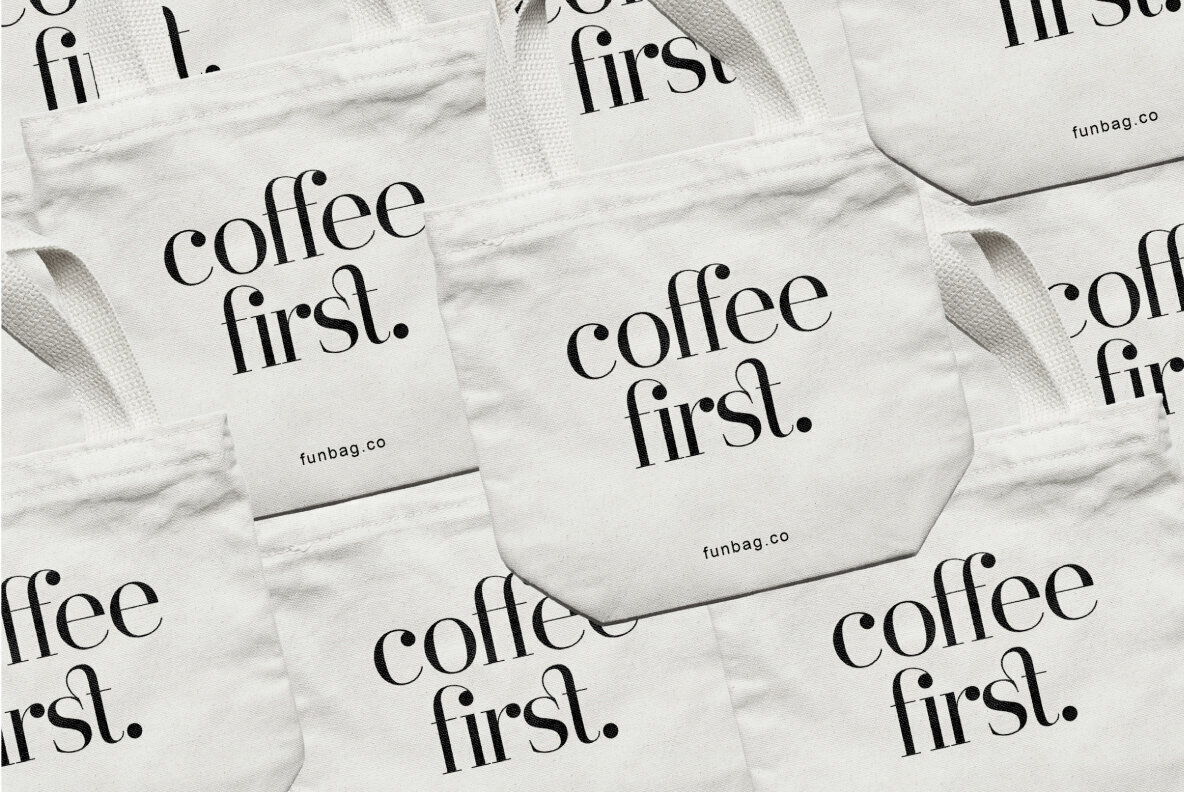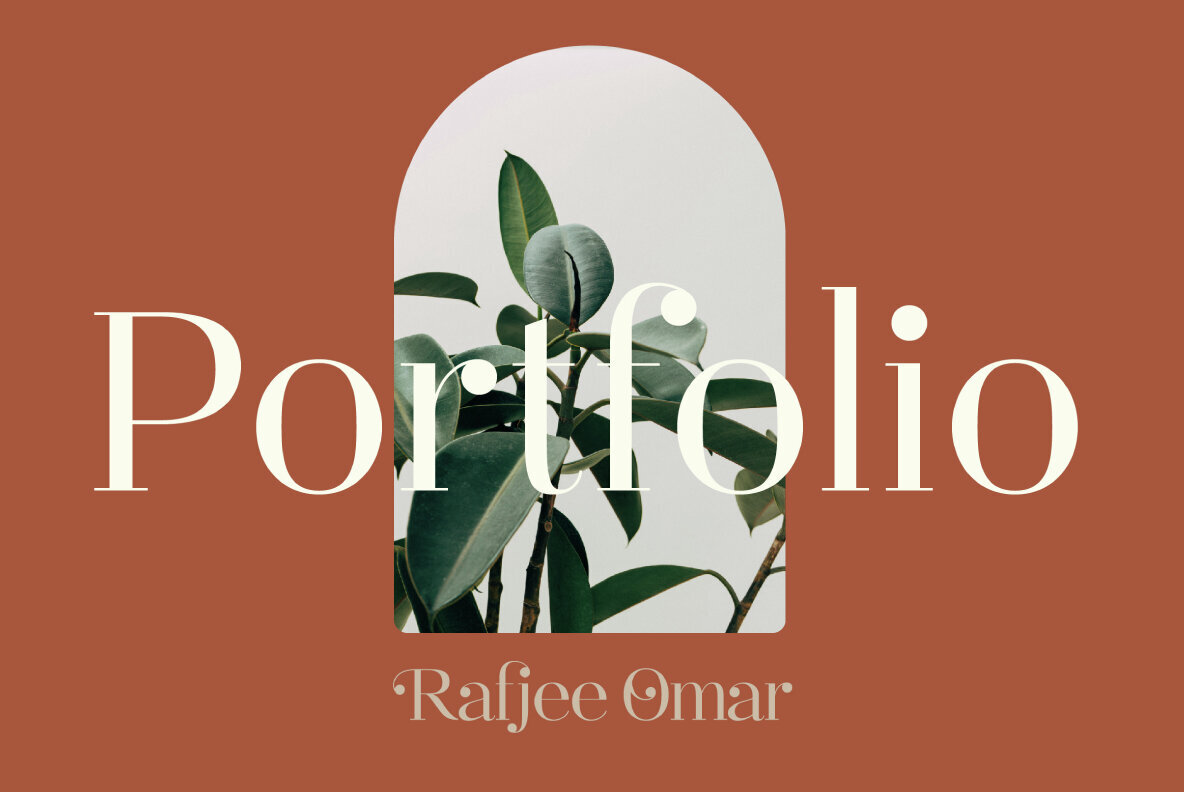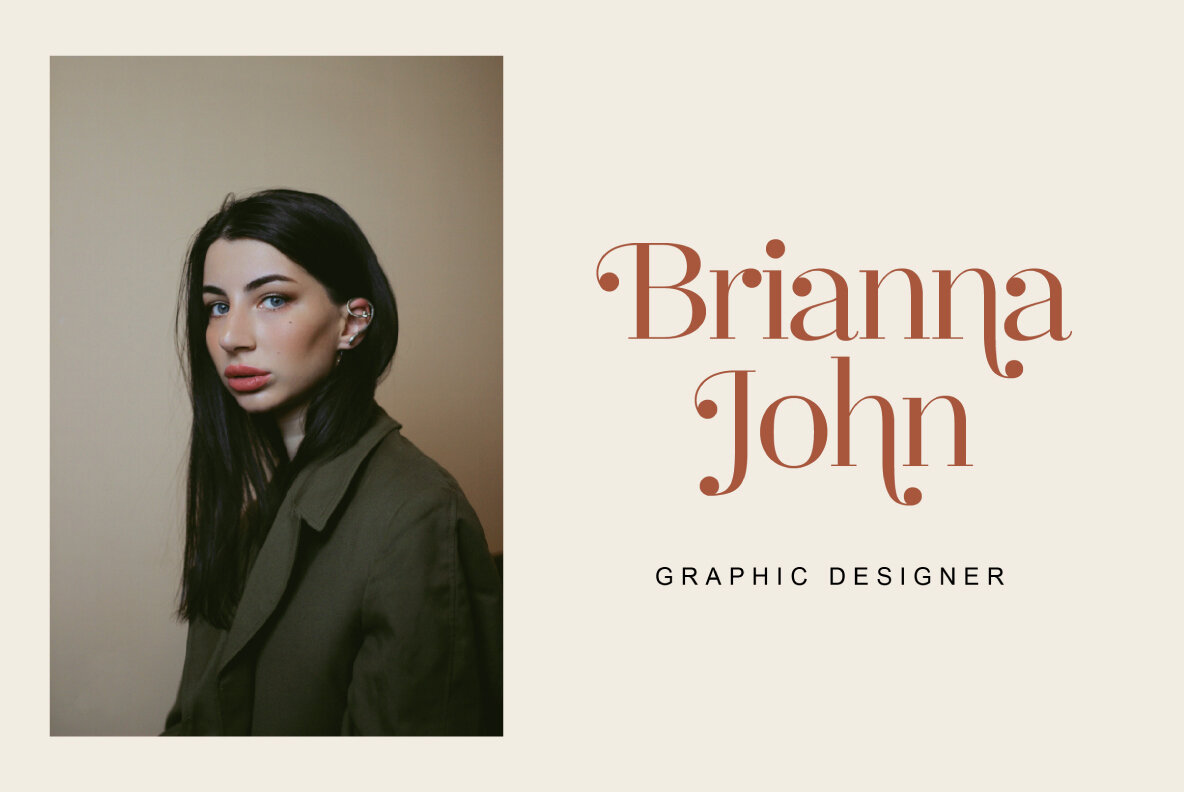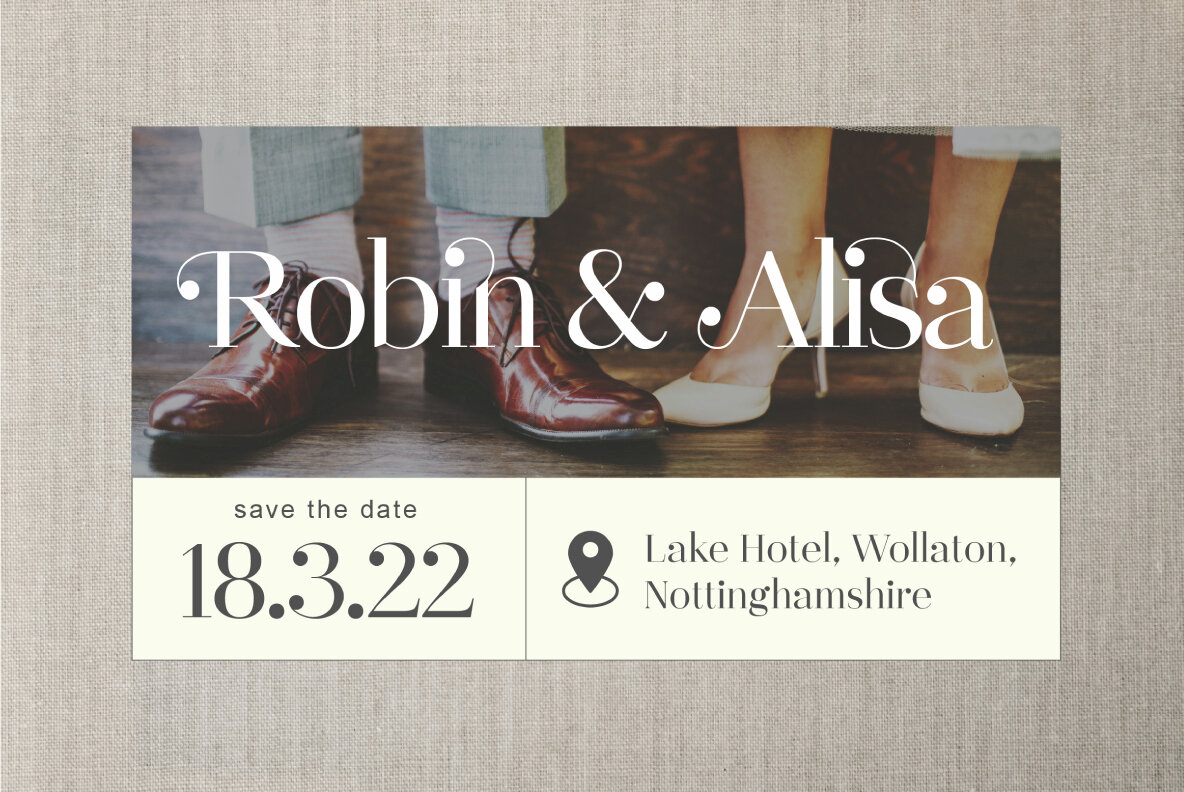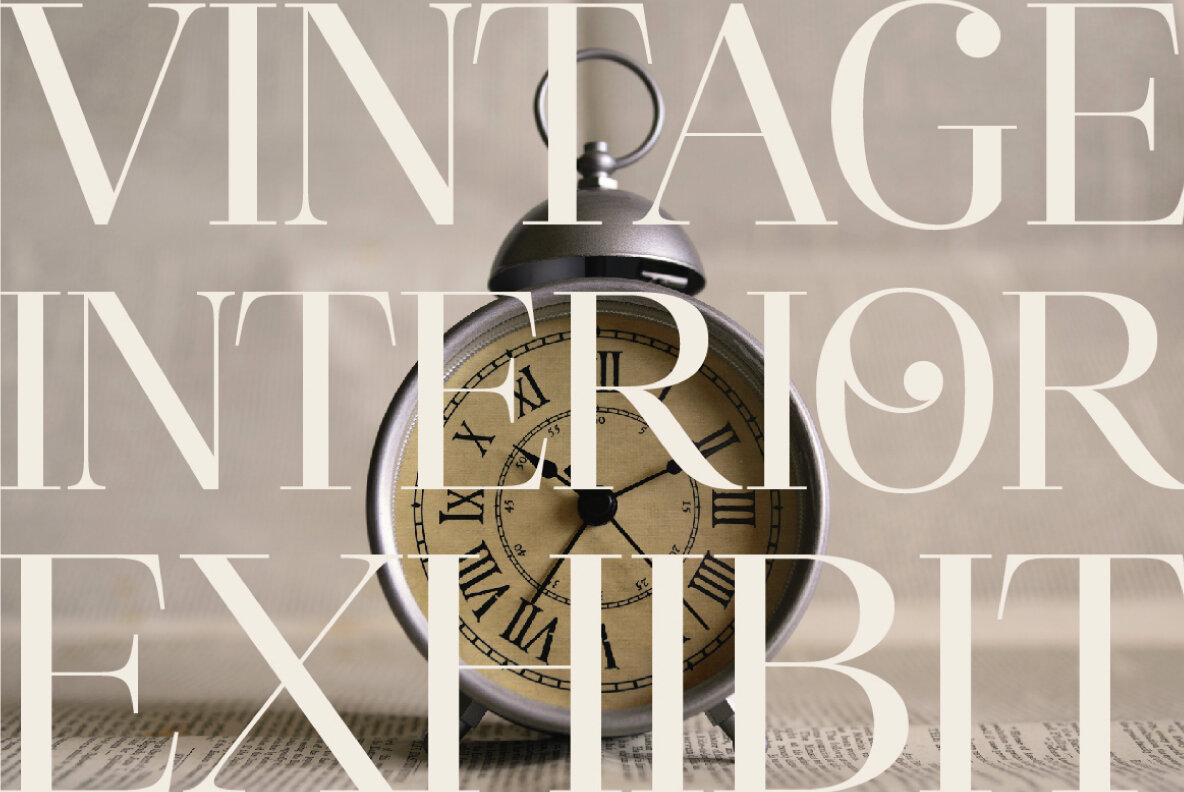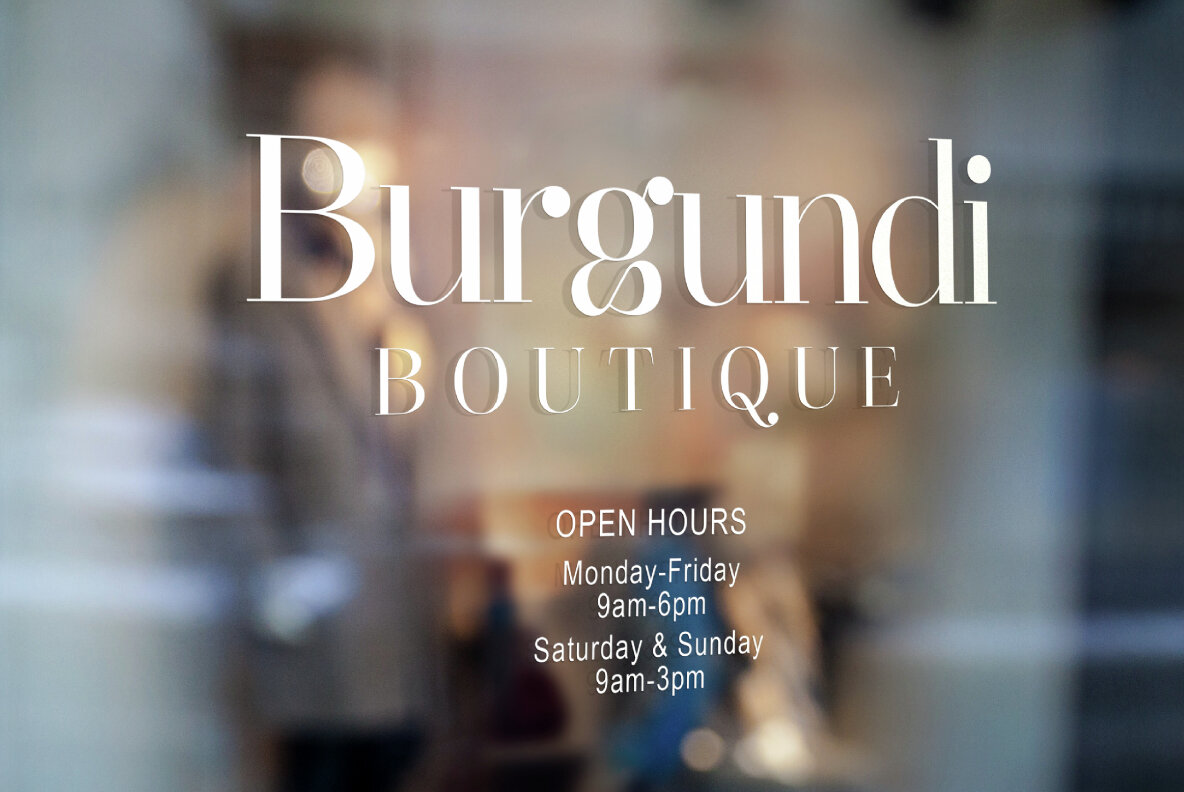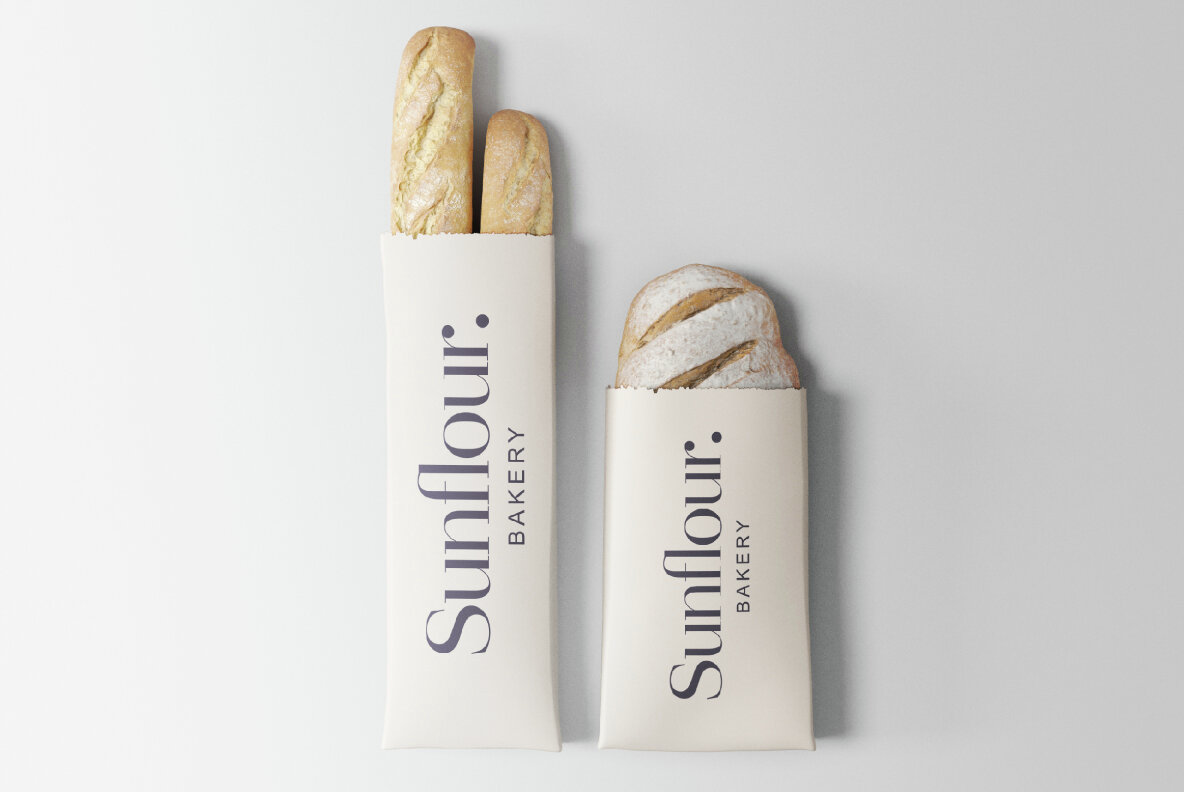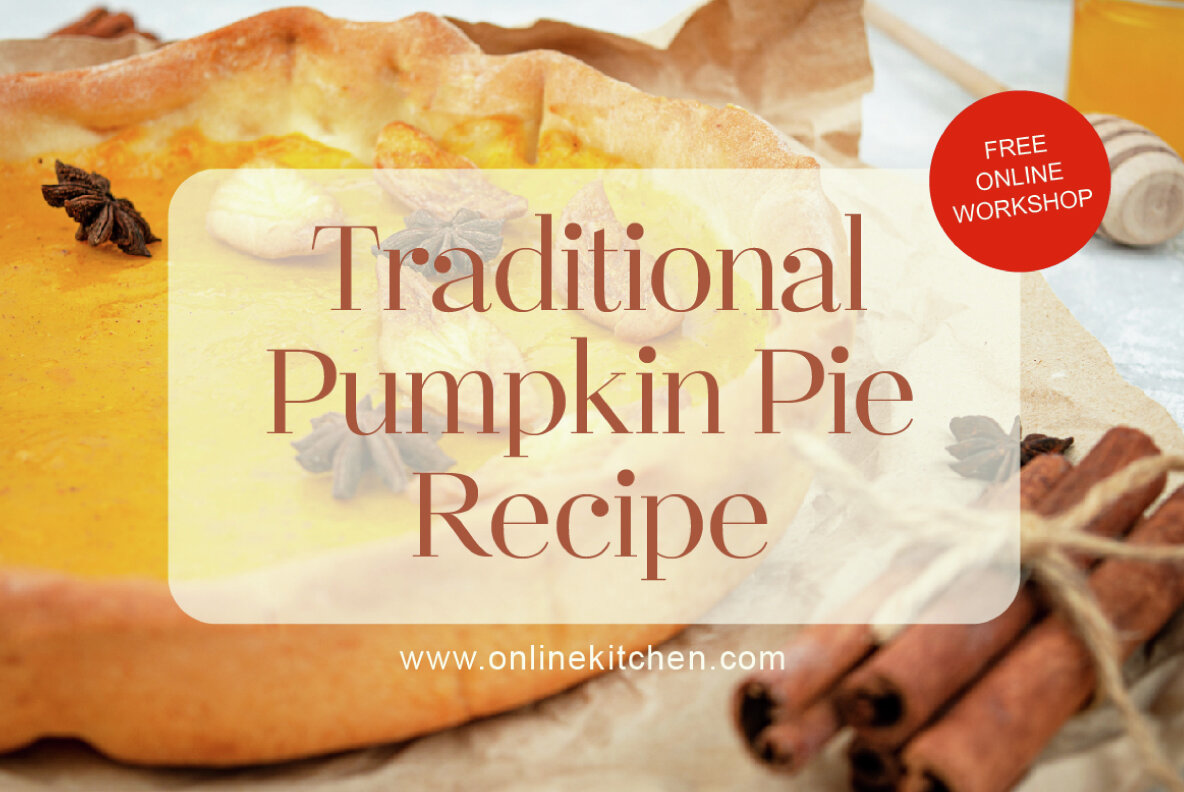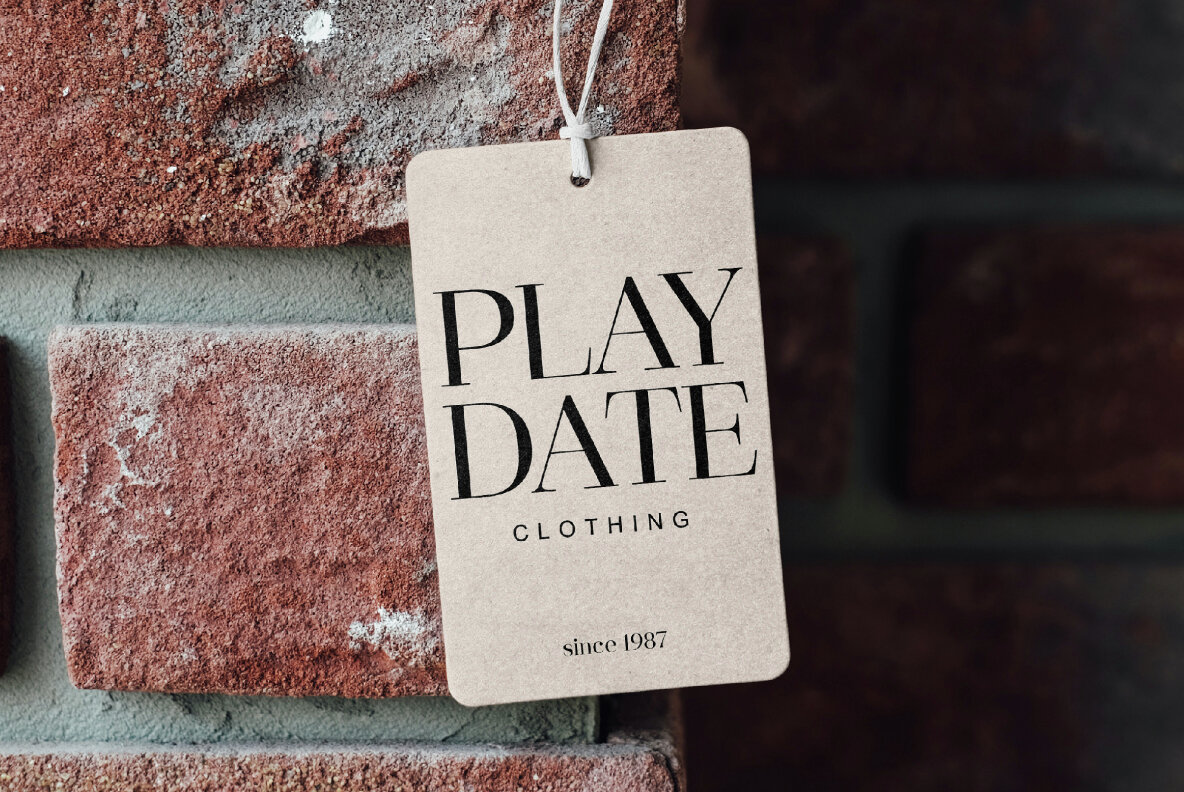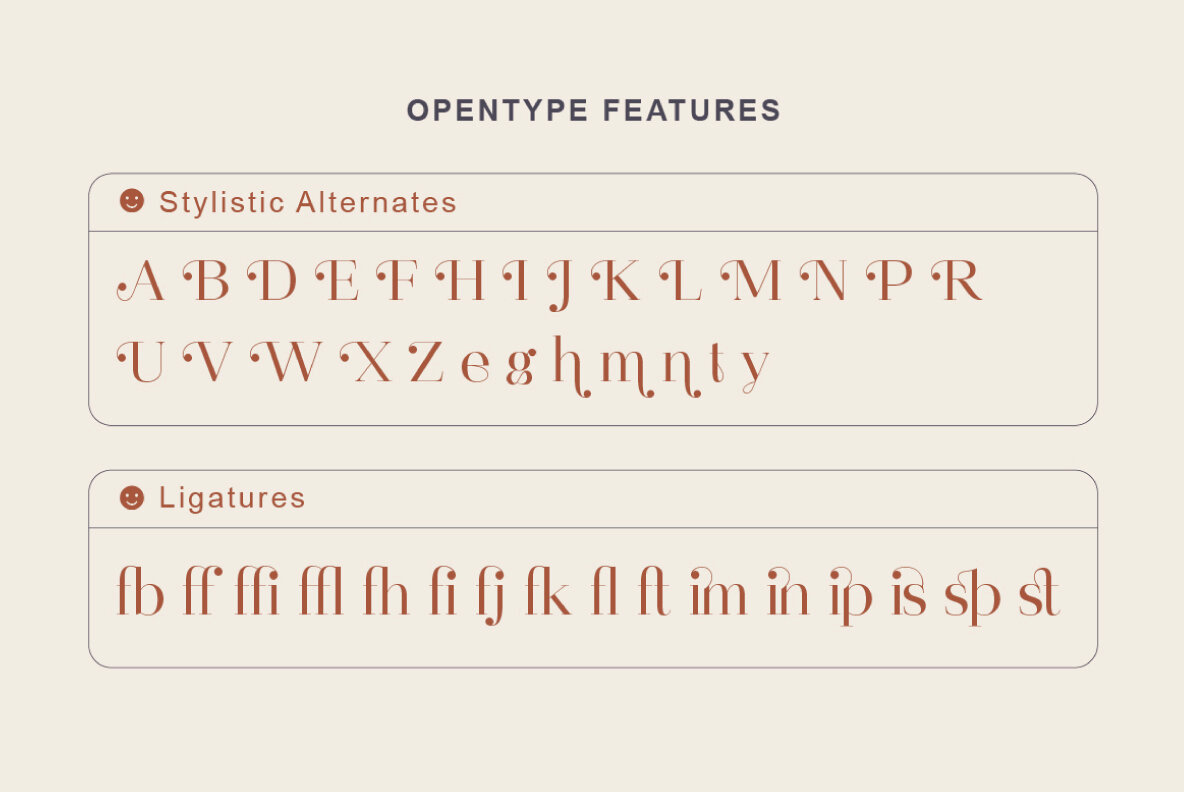
Destine Font
Destine Regular
Destine is a modern display typeface characterized by its high contrast and hairline serifs. Drawing inspiration from classic fonts like Didot and Bodoni, Destine combines elegance with functionality. This typeface includes opentype features such as stylistic ligatures and alternates, adding a touch of sophistication to any design project. Destine is versatile and suitable for branding, logos, book covers, magazines, headlines, and wedding invitations.Destine: A Modern Display Typeface with Classic Inspirations